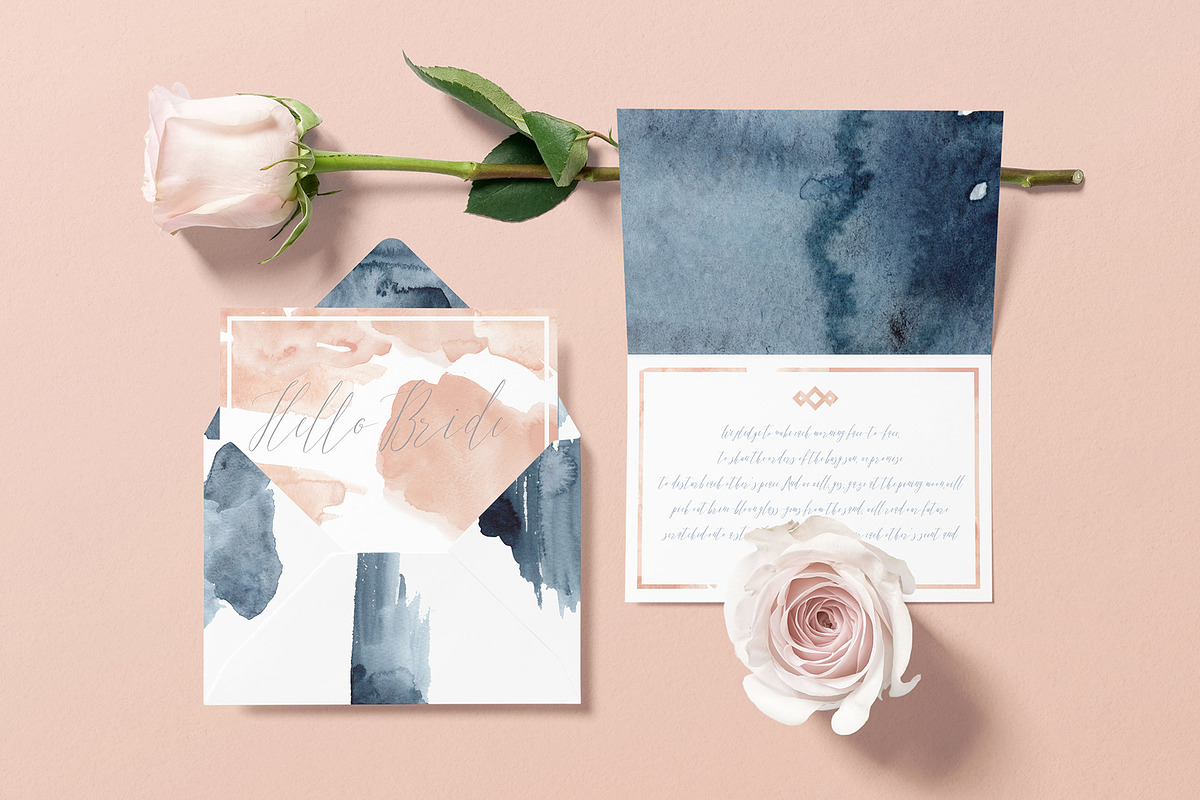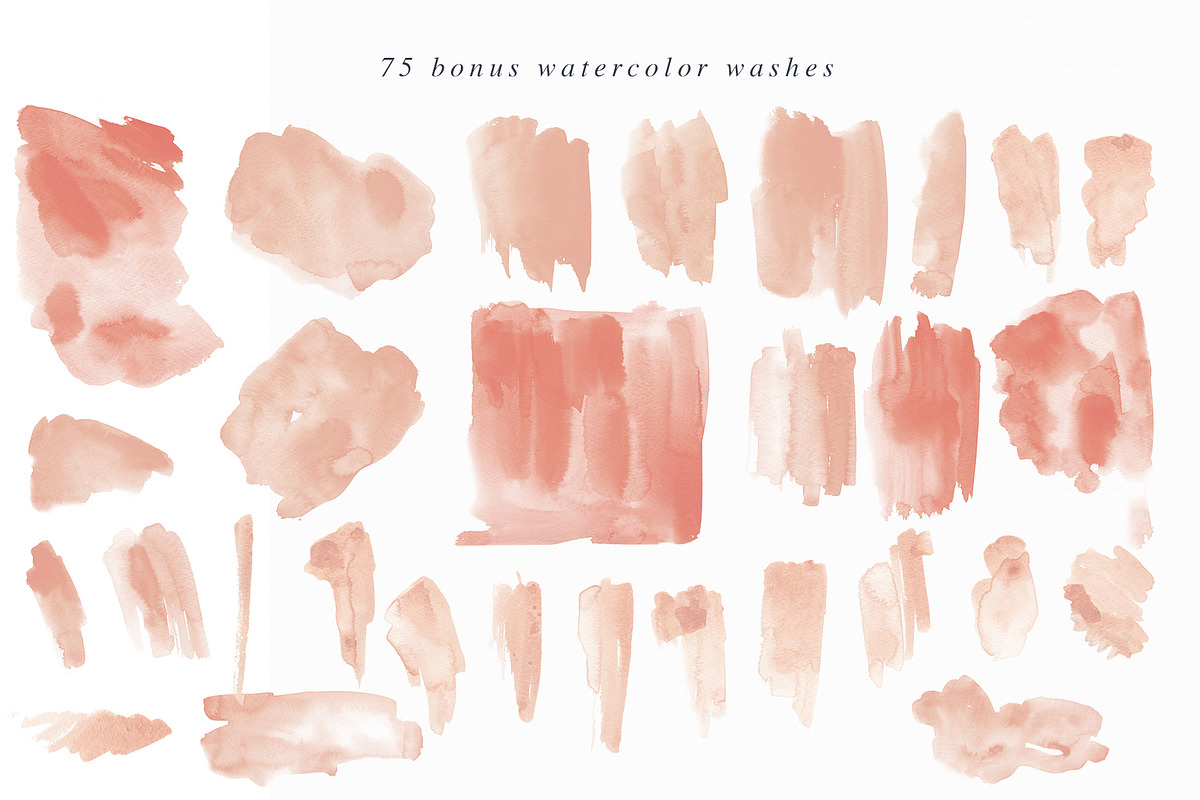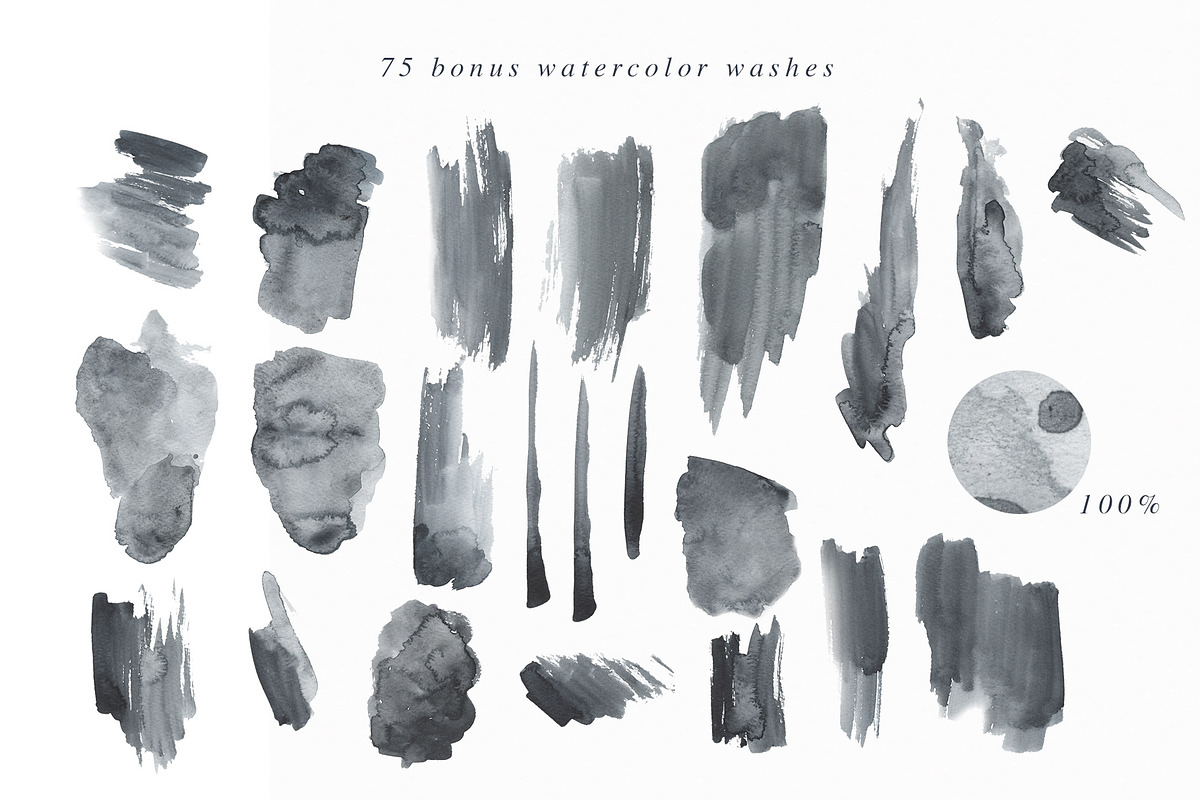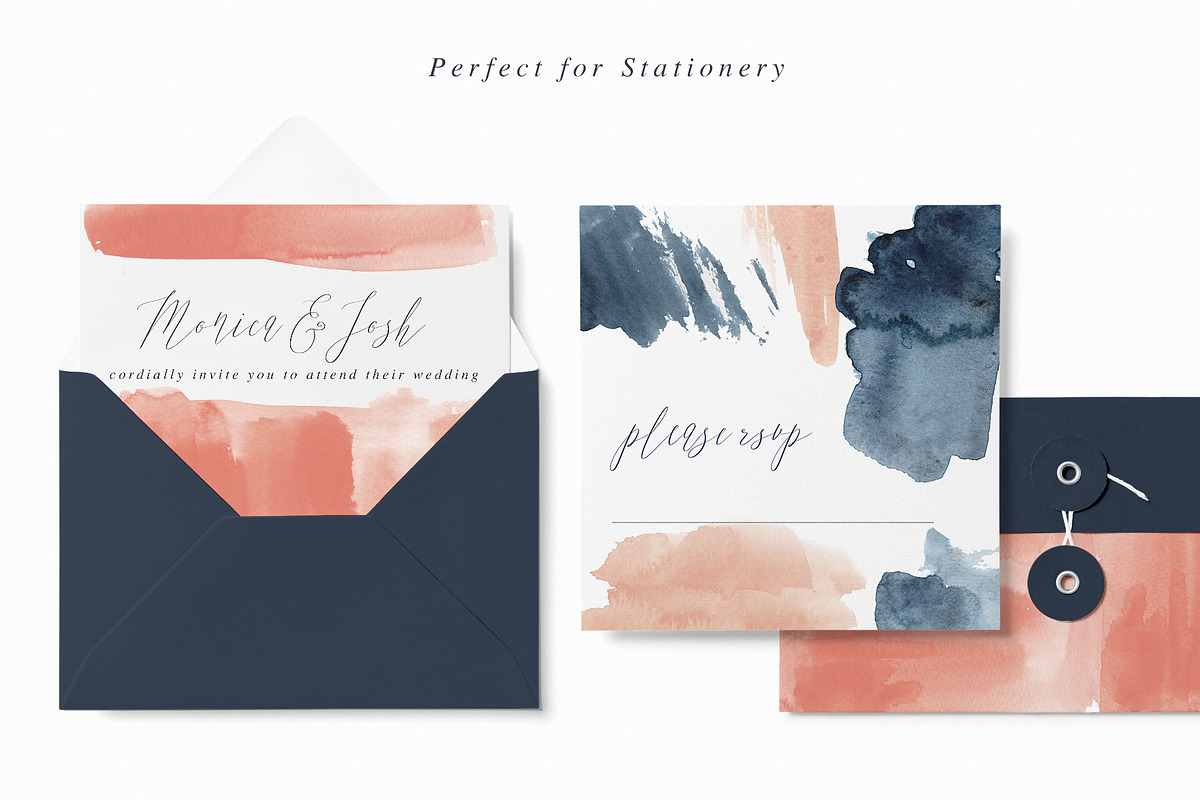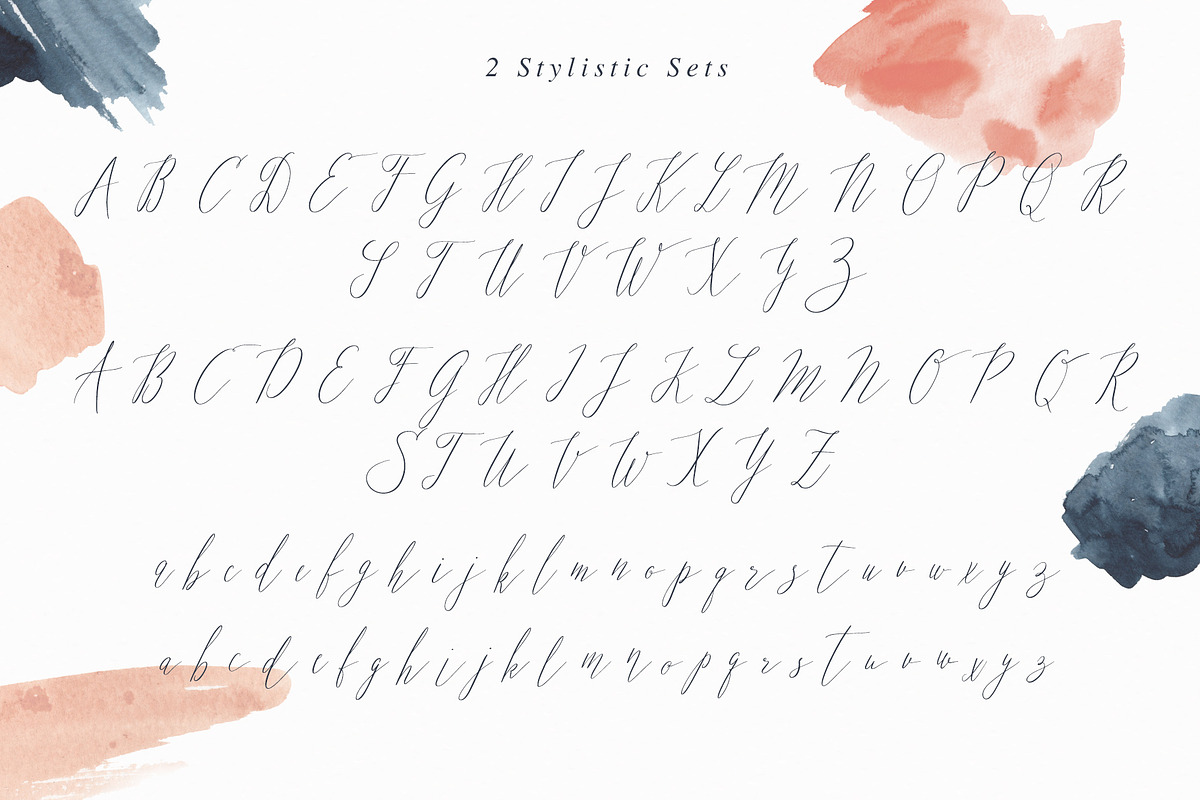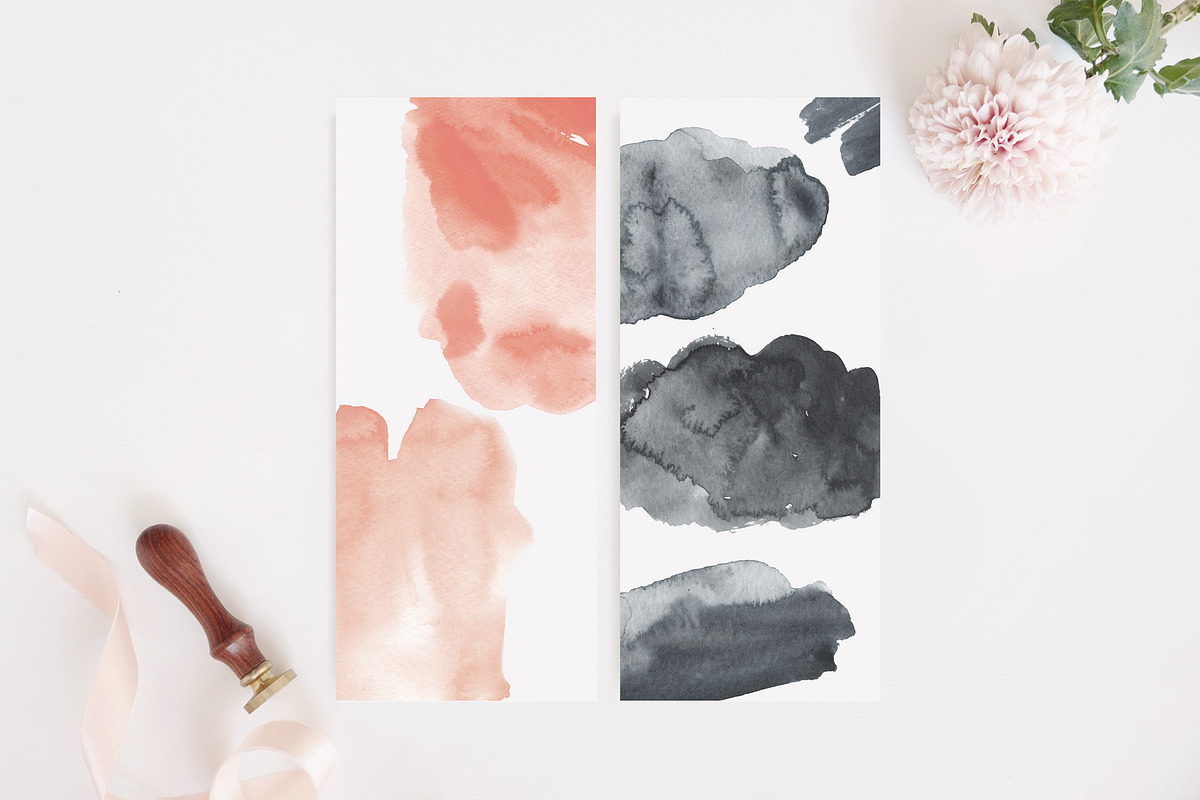
Hello Bride Font with Extras
Introducing the brand new wedding font Hello Bride with tons of watercolor extras. This font with playful bouncy baseline, classy modern caligraphy look and 2 complete stylistic sets is perfect especially for wedding invitations, stationery and feminine branding.
What makes it so special is the whopping set of 75 watercolor washes in dusty pink, navy and grey colors. You can use those handmade abstract shapes with or without this font - they're ideal for modern brand identities, blog or social media posts, stationery or even room decorations. Of course in high resolution.
2 complete stylistic sets